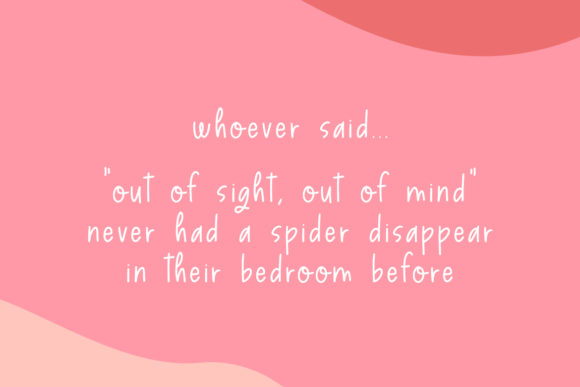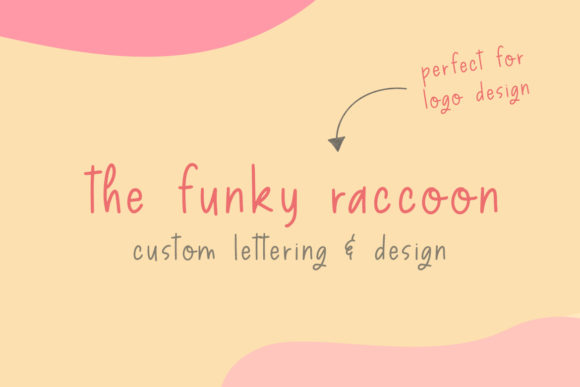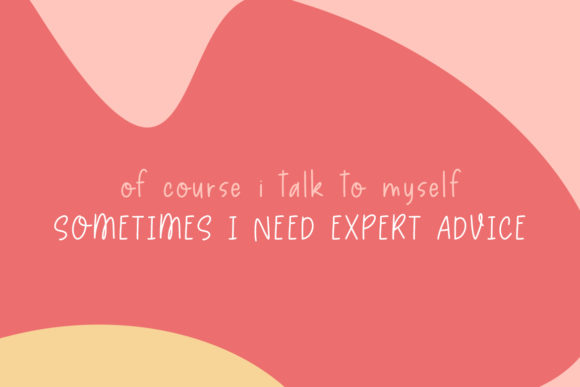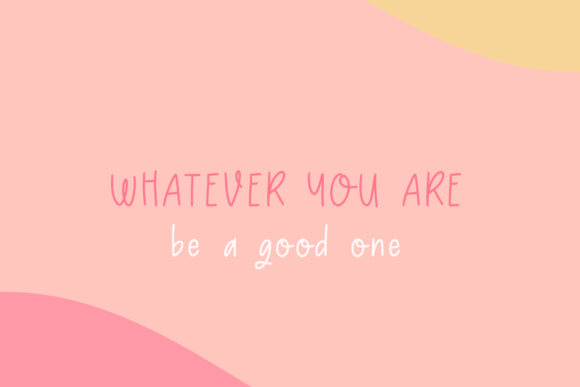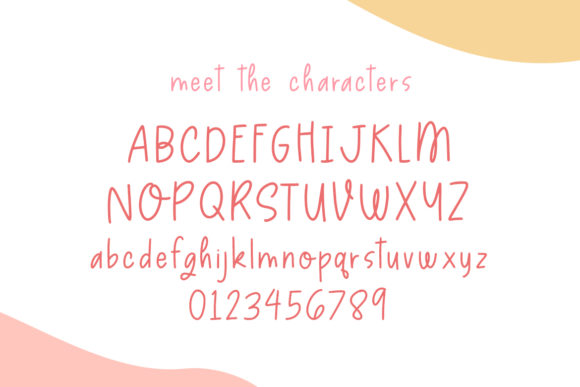
The Joy of Alone Together Font: Elevating Designs with a Charming Display Font
I still remember the design project that led me to discover the Alone Together font. I was working on a whimsical crafting project, aiming to create a visually appealing invitation for a handmade market. As I scrolled through my font library, I stumbled upon this delightful display font that instantly caught my attention. Its clean, rounded characters seemed to scream “fun” and “creativity,” and I knew right then that it was the perfect fit for my project.
So, what makes Alone Together font so special? Here are a few things that I absolutely adore:
- ✨ Clean and rounded characters that exude a sense of friendliness and approachability
- 💕 A charming, whimsical vibe that’s perfect for crafting and DIY projects
- 🎉 Excellent for headlines, titles, and short paragraphs of text
Of course, no font is perfect, and there are a few minor quirks to be aware of:
- 🤔 Some users might find the font a tad too playful for very formal or professional projects
- ⚠️ Limited availability of certain special characters or glyphs
One of the exciting features of the Alone Together font is its support for OpenType features and glyphs. These allow you to add an extra layer of creativity to your designs:
- Stylistic alternates: Swap out characters for alternate versions
- Ligatures: Combine characters for a more elegant look
- Glyphs: Access special characters, such as icons or ornaments
The Designer Inspiration Behind Alone Together Font
The story behind the Alone Together font is one of creativity and inspiration. According to the font’s creators, the goal was to craft a display font that would evoke feelings of joy and togetherness. By combining clean lines with rounded edges, the designers aimed to create a friendly, approachable aesthetic that’s perfect for a wide range of creative projects.
| Font Name | Alone Together Font |
| Author | Salt and Pepper Fonts |
| What type of projects is Alone Together font best suited for? | Alone Together font is ideal for crafting, DIY, and creative projects, such as invitations, posters, and social media graphics. |
| Is Alone Together font available in different weights or styles? | Currently, Alone Together font is available in a single weight. However, the font’s clean design makes it easy to use for a variety of applications. |